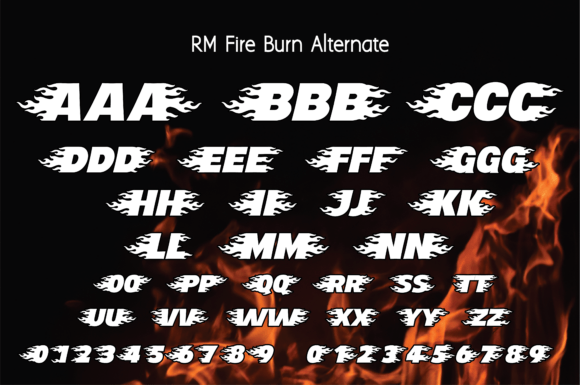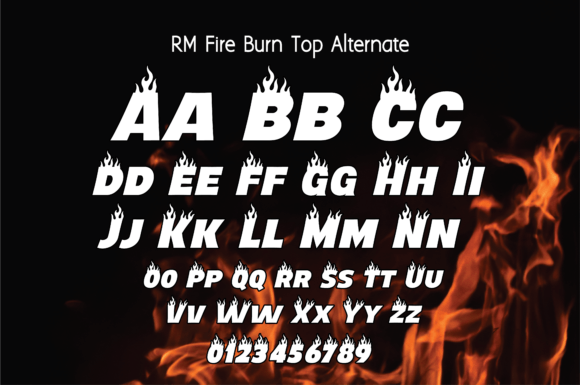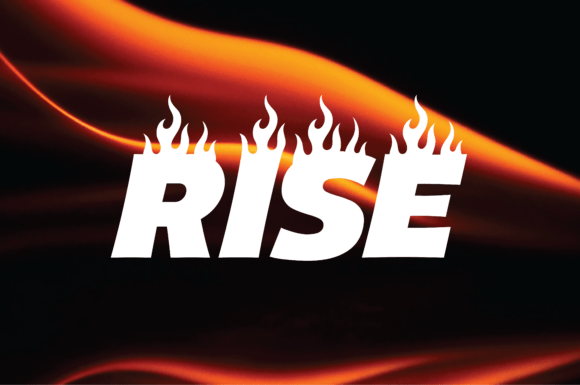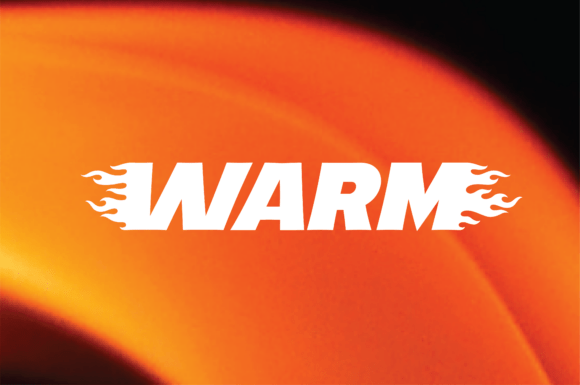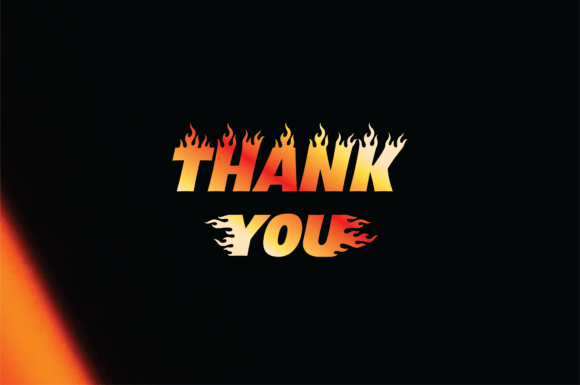
Introduction to Fire Burn Font
Presenting Fire Burn, a picturesque font that invites the mesmerizing flare of flames into your design repertoire.
This font sets your creativity alight, exhibiting fiery effects that brilliantly alternate from front to back, and peak at the top It’s akin to holding an enchanting ember in your hands, so warm and alive, it could dance.